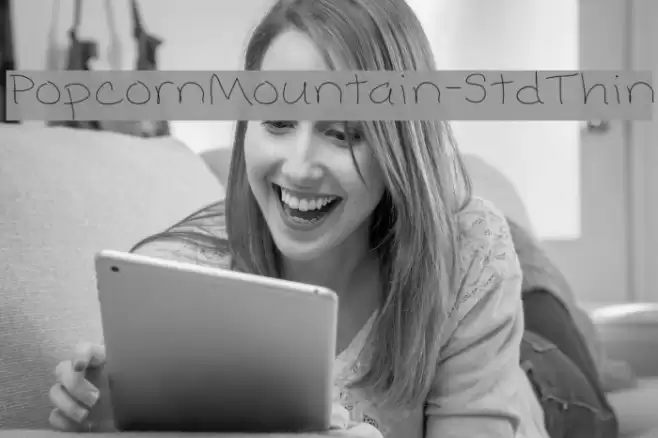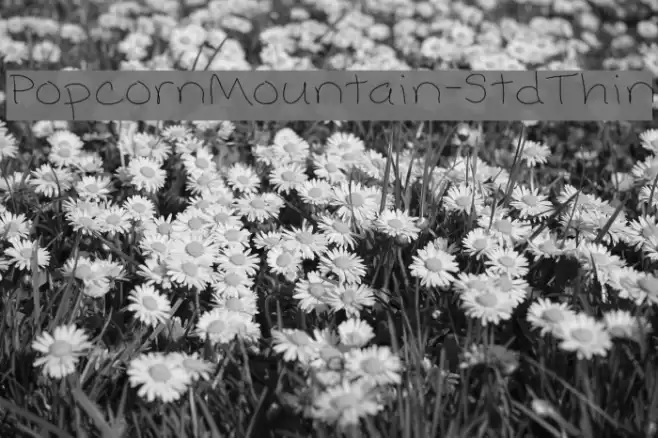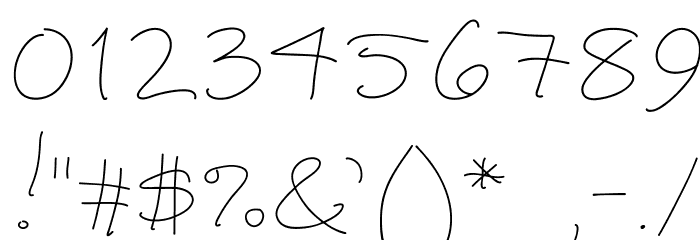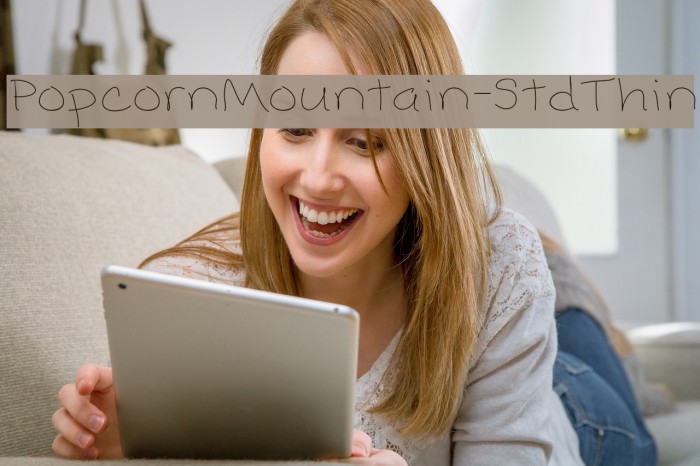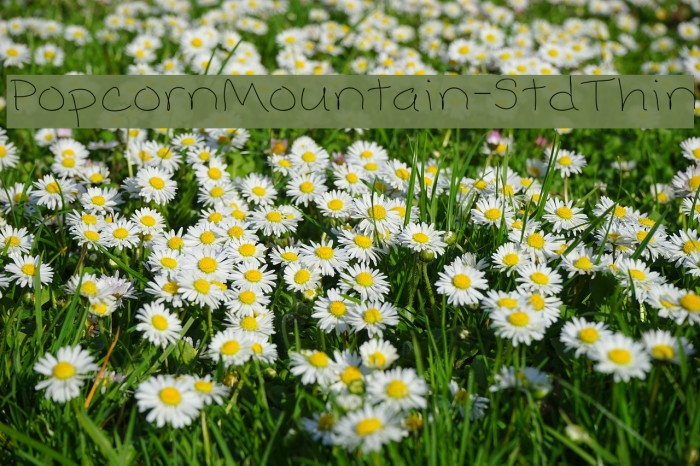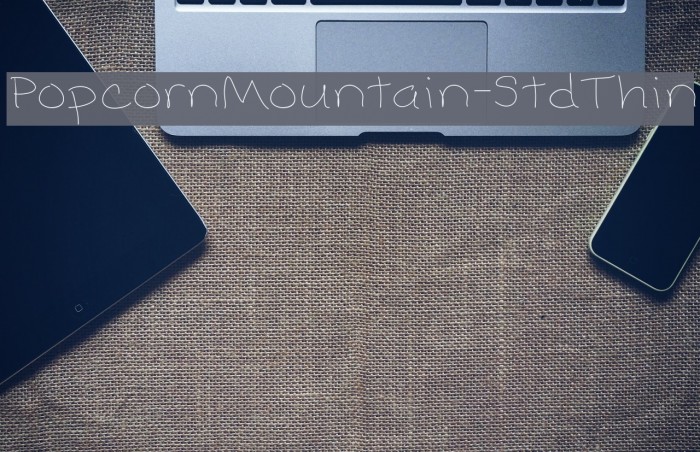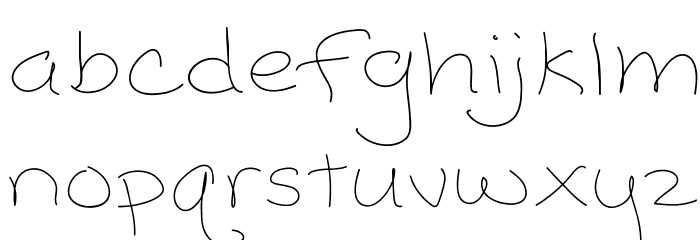
PopcornMountain-StdThin Font
PopcornMountain-StdThin Description
This font exhibits a playful and casual handwritten style, characterized by its thin and slightly irregular strokes that mimic the natural flow of handwriting. The letters are slightly slanted, adding a dynamic and informal touch. The uppercase and lowercase letters maintain a consistent style, with rounded edges and a whimsical feel. The numerals and special characters follow the same aesthetic, ensuring a cohesive look across all glyphs. This font's thinness gives it an airy and light appearance, making it suitable for designs that require a personal and approachable tone.
A playful, thin handwritten font with a casual and dynamic style from Uncategorized fonts.
- Proposed Projects: Ideal for greeting cards, personal notes, informal invitations, and playful branding projects.
- Overall Style: Casual
- Use Case: Logos, Invitations, Greeting Cards